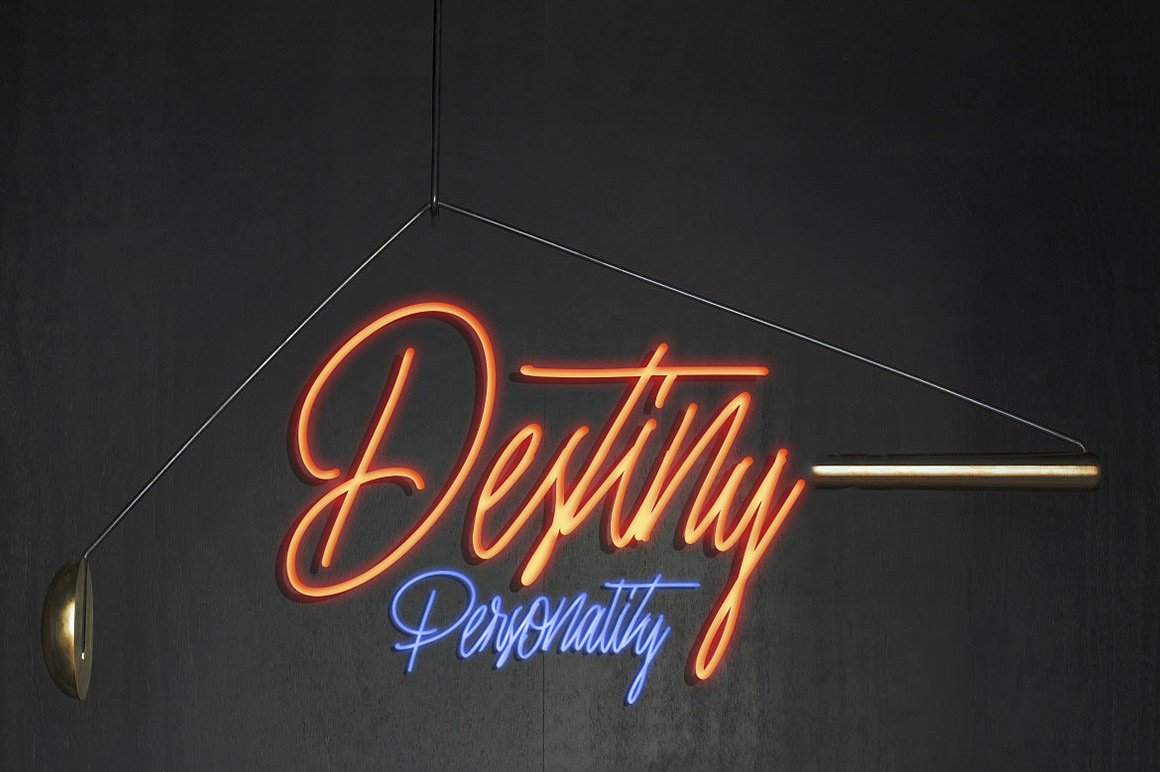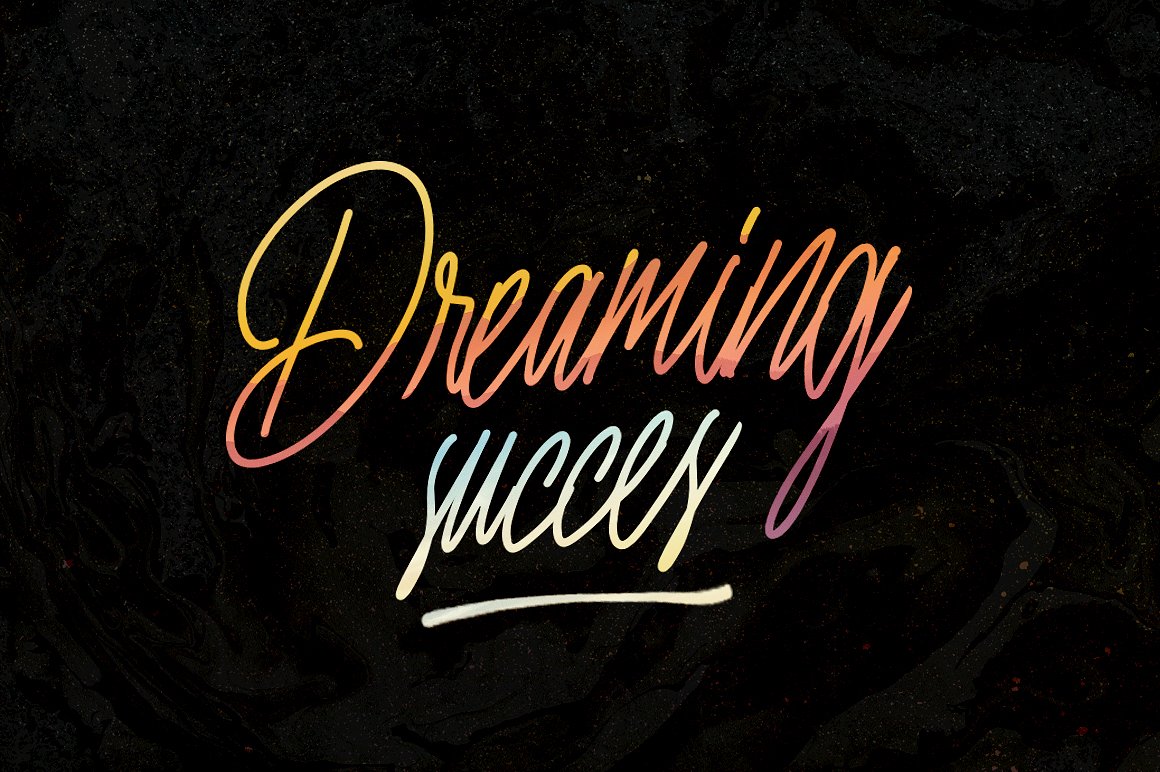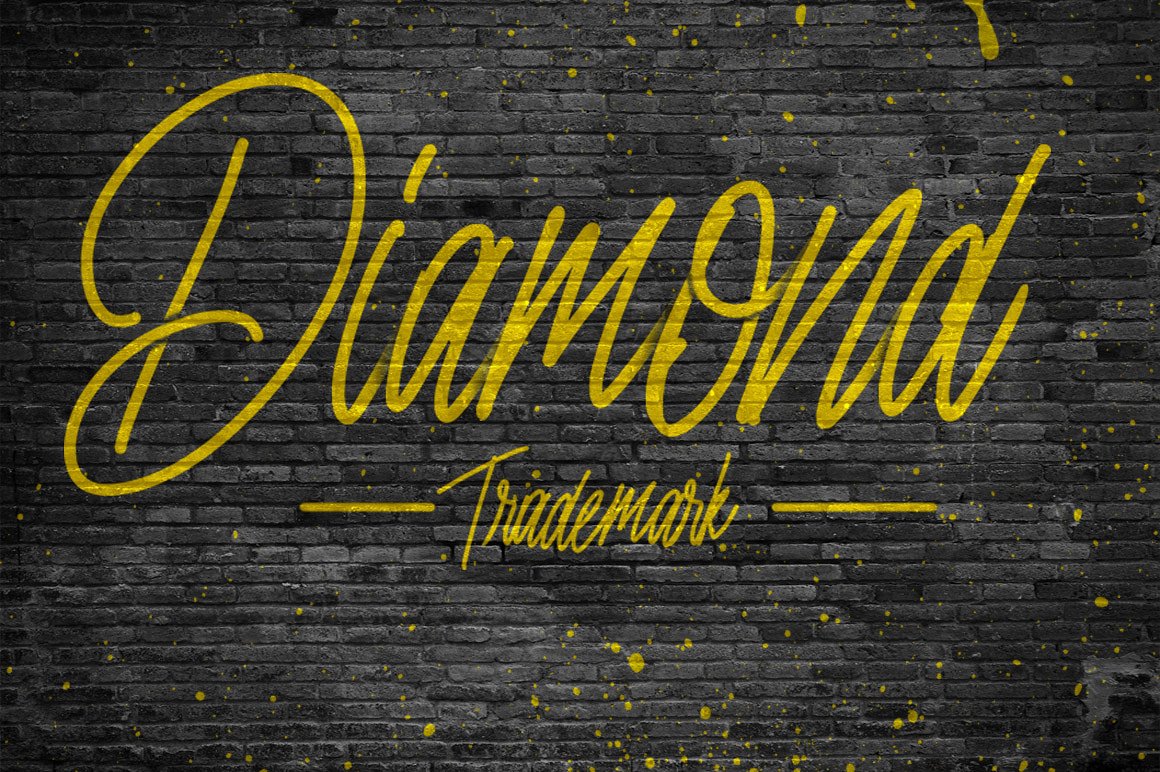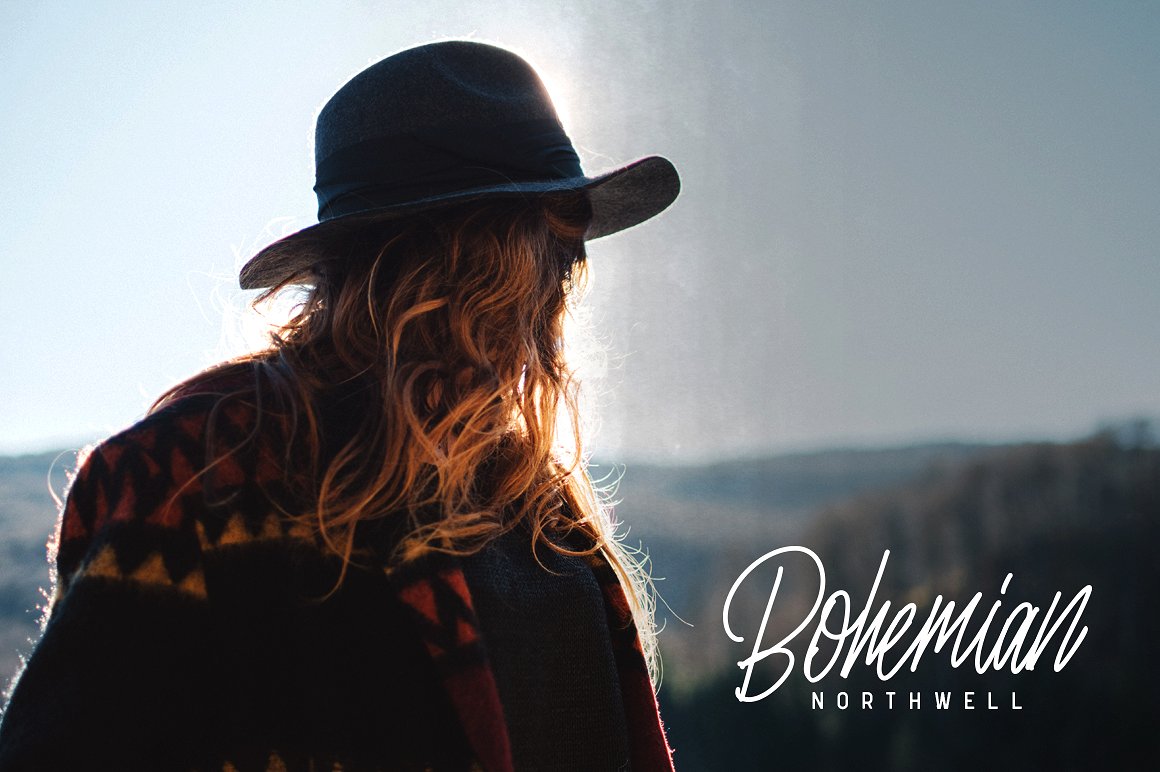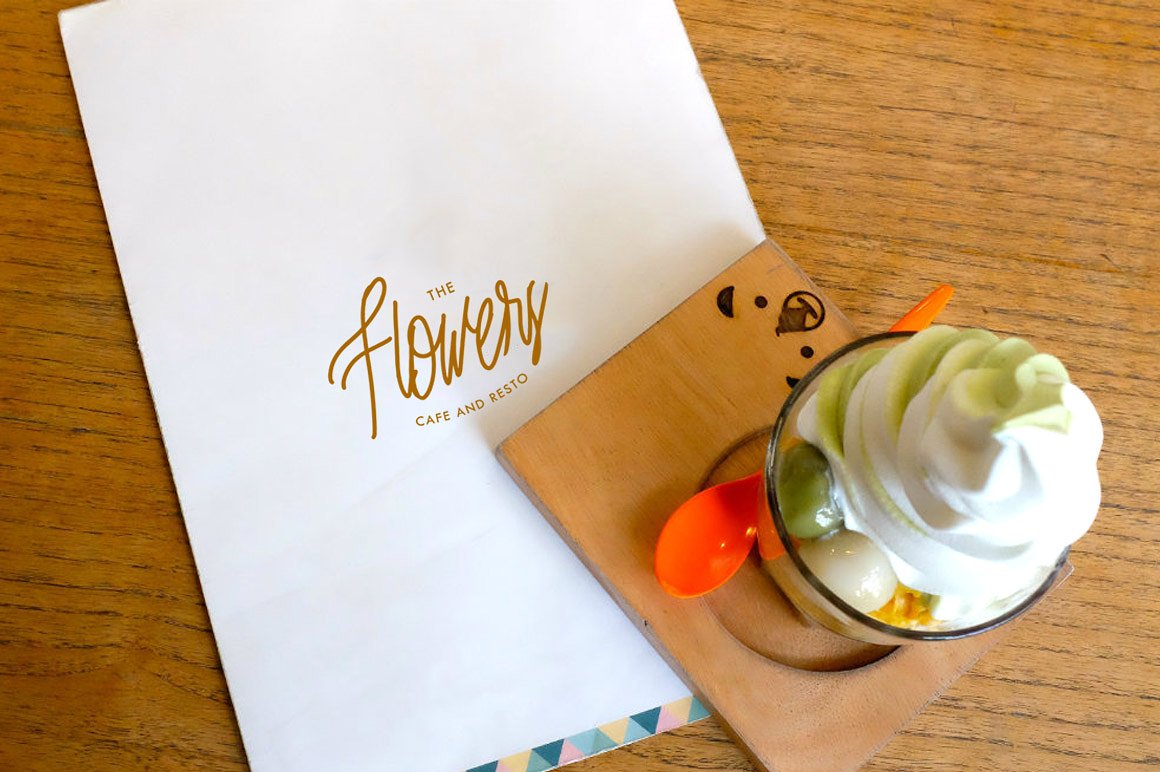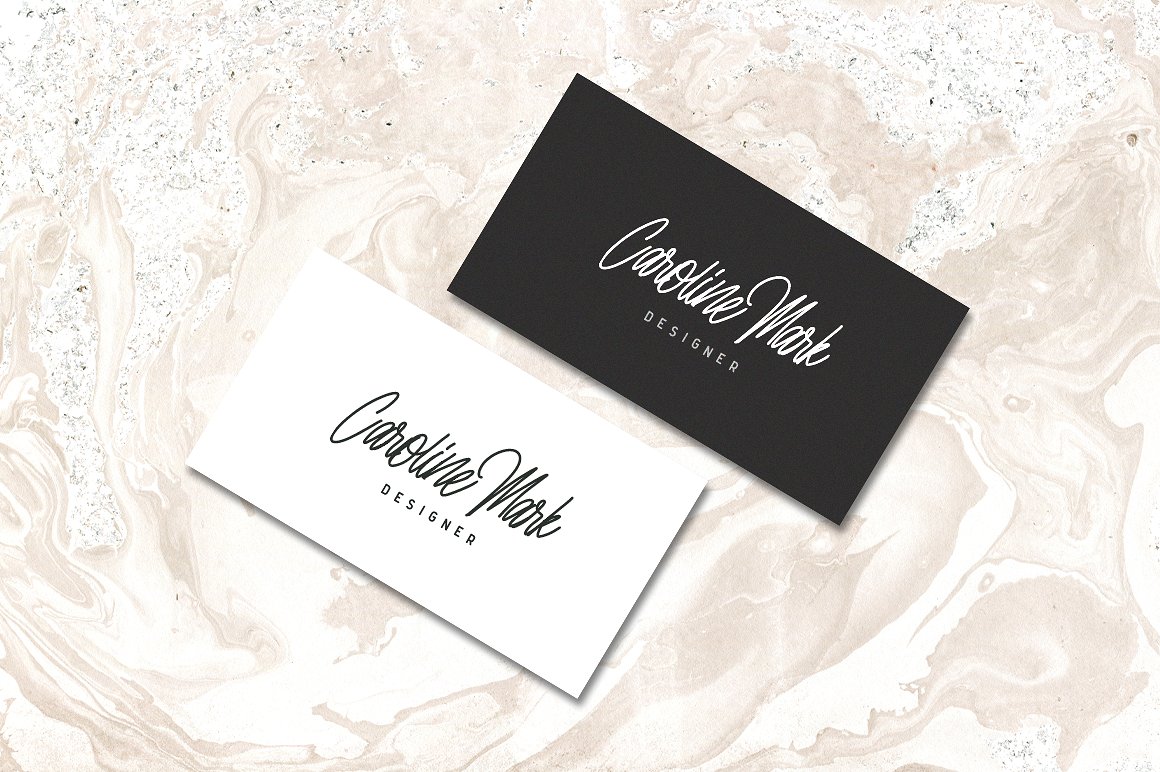
Introduction to Nuvanticia Font
Do you ever find yourself stuck in a creative rut, scrolling through your design resources in search of the perfect font to bring your project to life? For designers, the right font can be the difference between a mediocre design and a masterpiece. That’s why we’re excited to introduce you to the Nuvanticia Font, a stunning monoline script that’s sure to elevate your creative projects.
With its elegant and dynamic feel, the Nuvanticia Font is perfect for designers who want to add a touch of sophistication to their work. Whether you’re working on a free download or a high-end commercial project, this font is sure to impress. And with its transparent background, it’s easy to use in a variety of design applications.
In this article, we’ll take a closer look at the Nuvanticia Font and explore its many uses and benefits. From its versatility to its high quality design, we’ll show you why this font is a valuable addition to any designer’s toolkit.
Key Features of Nuvanticia Font
- High-quality, elegant design suitable for creative projects, such as logos, branding, and typography-based art.
- Features a transparent background, allowing for seamless integration with any design element.
- Designed with precision and care, ensuring crisp and clear typography at high resolutions (up to 300 DPI).
- Unique characteristics include a modern, futuristic feel and a wide range of stylistic alternates to enhance creativity.
Honest Review: Nuvanticia Font
I recently had the chance to work with the Nuvanticia Font, and I must say it’s a great addition to any design resource library. This font is perfect for creative projects where you need a unique and elegant touch.
Here are some of the things that work well with the Nuvanticia Font:
- ✨ High quality and detailed design
- ✨ Great for both digital and print media
- ✨ Compatible with most design software
- ✨ Transparent background, making it easy to use
- ⚠️ Some characters may not render correctly on certain platforms
Overall, I’m impressed with the Nuvanticia Font. It’s a solid choice for any design project, and the free download option makes it a great resource to have in your toolkit. I’d definitely recommend it to fellow designers looking for a high-quality font to add some creativity to their work.
Some tips for getting the most out of the Nuvanticia Font include using it in combination with bold and italic styles to create visual interest, and experimenting with different font sizes to create a balanced design. Common use cases for the Nuvanticia Font include creating logos, branding materials, and marketing materials for creative projects.
What file formats are available for the Nuvanticia Font?
Does the Nuvanticia Font have a transparent background?
Yes, the Nuvanticia Font has a transparent background, making it ideal for use on images with complex backgrounds. This feature allows designers to easily overlay the font on top of other design elements.